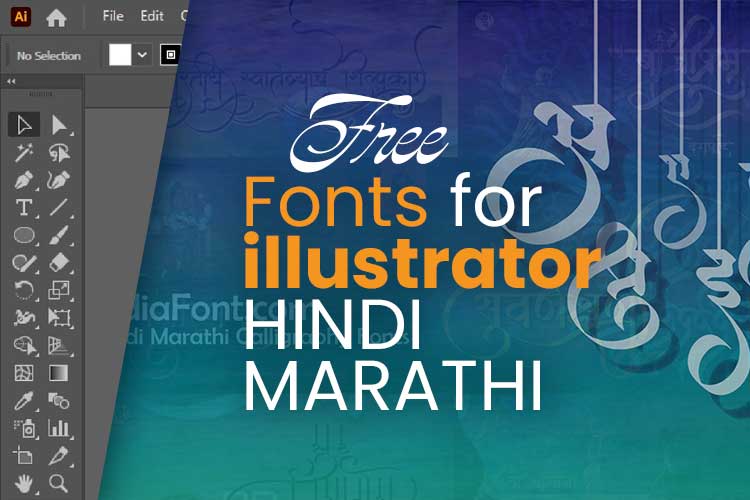
Hindi Fonts for Illustrator, Our collection of free Hindi and Marathi fonts for Adobe Illustrator is here to amplify your creative expressions. Typography, the art of arranging text in a visually appealing manner, plays a pivotal role in the design, and our diverse array of fonts empowers you to make a statement with your text.
Gear up with Free Hindi and Marathi fonts for Adobe Illustrator as Typography plays a crucial role in the design, conveying messages, emotions, and aesthetics. With our carefully curated fonts, you can infuse your designs with the beauty and elegance of Indian languages. Whether you're working on graphic design, branding, or illustrative projects, our free fonts are here to elevate your creative journey.
Professional Design
Create stunning graphic designs with fonts optimized specifically for Adobe Illustrator's vector-based environment.
Vector Compatibility
All fonts are fully compatible with Illustrator's vector graphics, ensuring crisp rendering at any scale or resolution.
Creative Versatility
From logos to posters, brochures to digital art - perfect for every creative project in your design workflow.
Incorporating Hindi typography in your designs lends them an air of elegance and cultural depth. Our Hindi fonts for Adobe Illustrator span a wide spectrum of styles, from traditional to contemporary. Each font has been meticulously designed to ensure clarity and visual harmony. Whether you're working on a poster, brochure, or digital artwork, these fonts add a unique touch to your creations.
Incorporating Hindi fonts into your Adobe Illustrator projects allows you to capture the essence of the language's rich culture and heritage. Each font has been meticulously designed to reflect the nuances of Hindi typography, offering a wide range of styles from traditional to contemporary. From elegant scripts to bold headlines, our collection empowers you to express your creativity while staying true to the essence of the language.
Professional Hindi & Marathi Fonts for Illustrator:
Professional writing font perfect for branding, headers, and sophisticated design projects in Illustrator
Professional
Versatile everyday font ideal for body text, labels, and comprehensive design layouts
Versatile
Modern calligraphy font perfect for elegant branding and artistic design compositions
Artistic
Dignified font with authoritative presence perfect for corporate branding and premium designs
Corporate
Clean and pure font design ideal for minimalist designs and modern graphic compositions
Clean
Bright and illuminating font perfect for celebratory designs and vibrant graphic projects
Vibrant
Strong and determined font ideal for impactful headlines and bold design statements
Bold
Life-inspired font with dynamic energy perfect for creative and lifestyle brand designs
Dynamic
Line-based font design with excellent readability perfect for infographics and data visualization
Clear
Traditional calligraphy font with cultural authenticity perfect for heritage brand designs
Traditional
Pure and refined font with sophisticated appeal ideal for luxury brand and premium designs
Luxury
Decorative calligraphy font with ornate details perfect for elaborate design compositions
DecorativeMarathi Fonts for Illustrator
When it comes to creating designs that resonate with Marathi culture and heritage, our free Marathi fonts for Adobe Illustrator are the perfect choice. These fonts capture the essence of Marathi typography, allowing you to create designs that are both visually captivating and culturally relevant. From sleek and modern to ornate and traditional, our Marathi fonts cater to a variety of design preferences.
Marathi, with its unique script and visual identity, brings a distinct charm to any design. Our free Marathi fonts for Adobe Illustrator enable you to seamlessly integrate the beauty of the language into your projects. Whether it's a poster, brochure, or digital artwork, these fonts open up new avenues of expression. From classic to modern, our collection ensures you have the perfect font style for your creative vision.
Authentic Marathi Typography for Modern Design
Experience the cultural richness of Marathi script in contemporary design contexts. Our fonts preserve traditional beauty while meeting modern design standards.
Cultural Authenticity
Fonts designed with deep respect for Marathi literary and calligraphic traditions.
Design Versatility
Suitable for both traditional cultural projects and contemporary design applications.